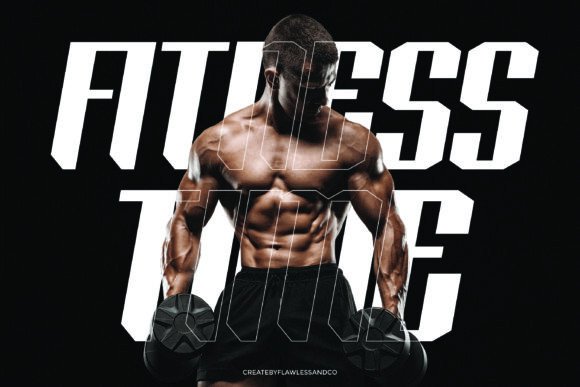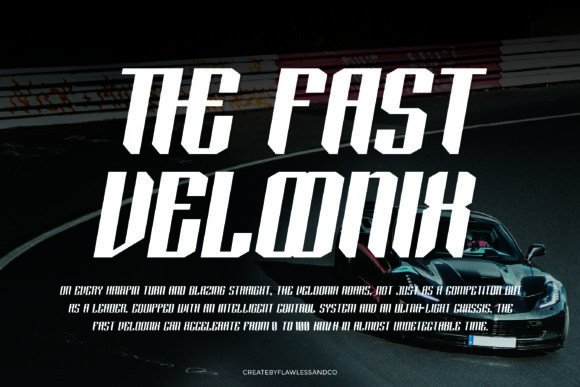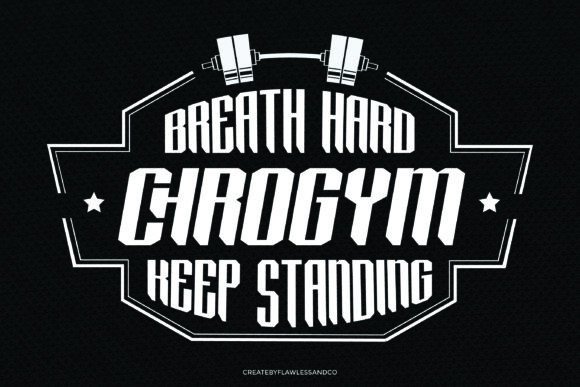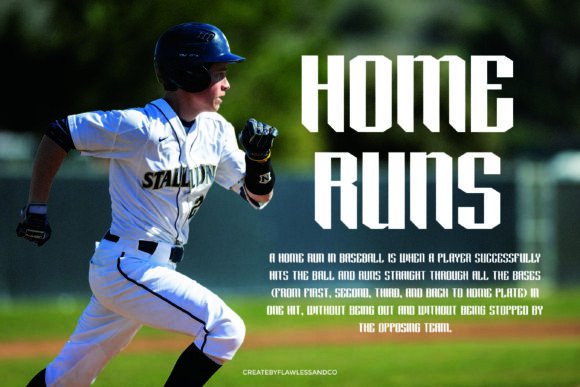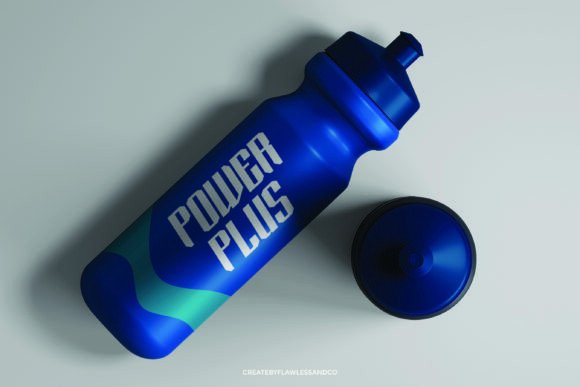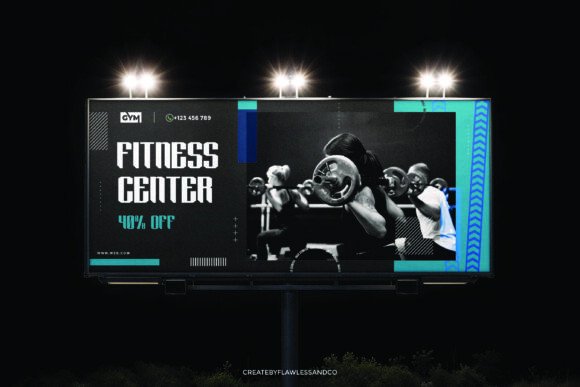
Introduction to Gelathic Font
Have you ever been brainstorming a creative project and suddenly, a spark of inspiration hits you? The perfect font pops into your mind, elevating your concept from ordinary to extraordinary. For many designers, that moment is often accompanied by a desire for a font that embodies strength, power, and precision. Enter the Gelathic Font – a modern sport font designed to dominate with its bold, strong, and sharp-edged aesthetic.
As a valuable design resource, Gelathic Font offers a fresh take on athletic typography, delivering unstoppable visual energy to your creative projects. Whether you’re working on gym branding, energy drink labels, activewear logos, or fitness campaigns, this font is the perfect choice to push your design to new heights. With its high-quality design and transparent background, Gelathic Font is a free download waiting to be unleashed on your next project.
For designers, Gelathic Font is a game-changer, providing the perfect balance of style and functionality to elevate your designs. With PUA encoding included, all special characters and decorative elements are easily accessible without additional software, making it an essential design tool for any creative project.
Key Features of Gelathic Font
- Unique, high-quality design for creative projects, perfect as a design resource.
- Features a transparent background, allowing for easy layering and customization.
- Available in 6 different styles, each with its own unique characteristics and applications.
- High-resolution design, suitable for use in print and digital applications at 300 DPI or higher.
- Designed to be versatile and adaptable, making it an ideal choice for a wide range of creative projects.
Honest Review: Gelathic Font
I recently stumbled upon the Gelathic Font and I must say, it’s a game-changer for my creative projects. The high quality of this font makes it a must-have in my design arsenal.
- ✨ High-quality glyphs that are crisp and clear, making it perfect for printing.
- ✨ A wide range of language support, including Latin, Cyrillic, and Greek alphabets.
- ✨ The transparent background option makes it easy to use on any design background.
- ⚠️ Some users may find the font’s unique design style to be too unconventional for their taste.
Overall, I’m thoroughly impressed with the Gelathic Font and I would highly recommend it to anyone looking for a high-quality design resource. It’s a fantastic addition to any creative project, and I’m excited to see how I can incorporate it into my future designs.
Getting the Most Out of Gelathic Font
To get the most out of the Gelathic Font, use it with a transparent background to create a clean and minimalist design. Experiment with different font sizes and styles to add visual interest to your design.
The Gelathic Font is ideal for creative projects, such as logos, business cards, and brochures. Its high-quality design and transparent background make it a great design resource for any project.